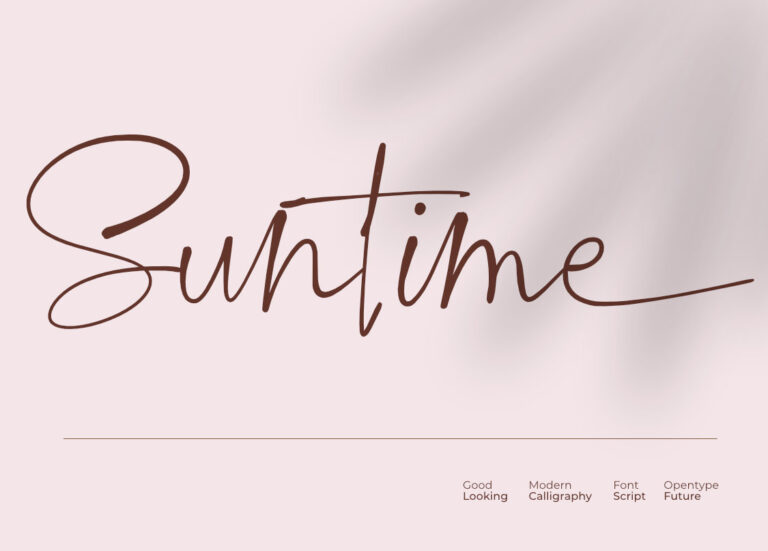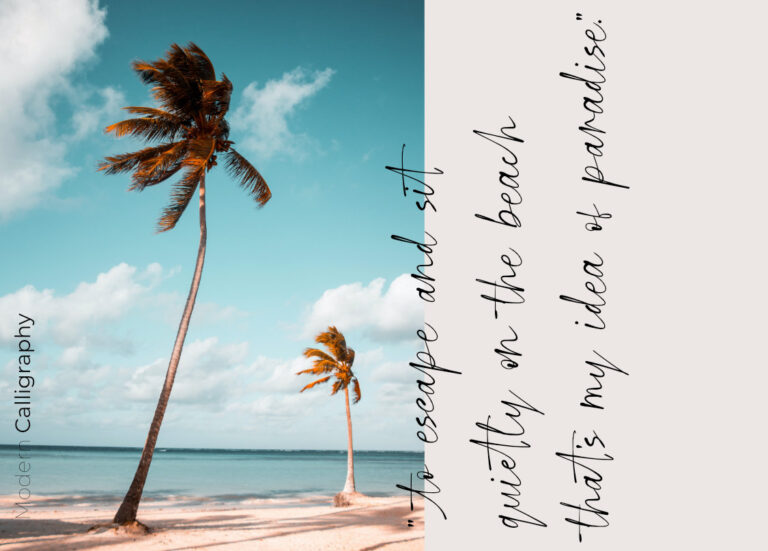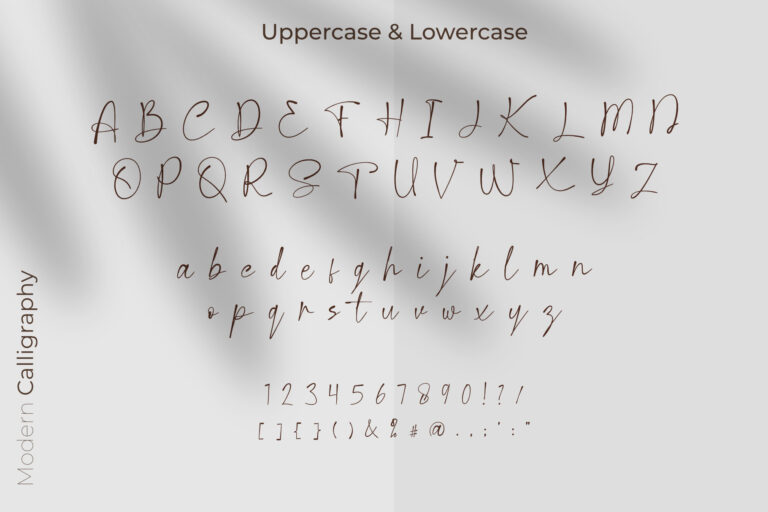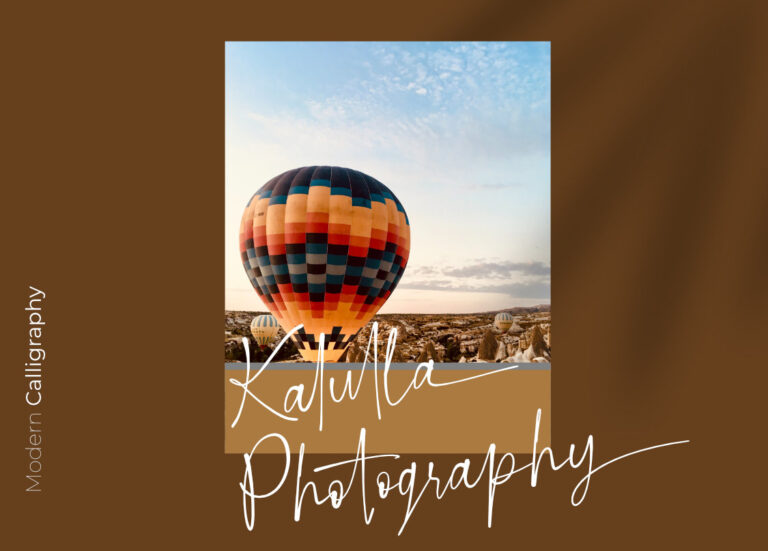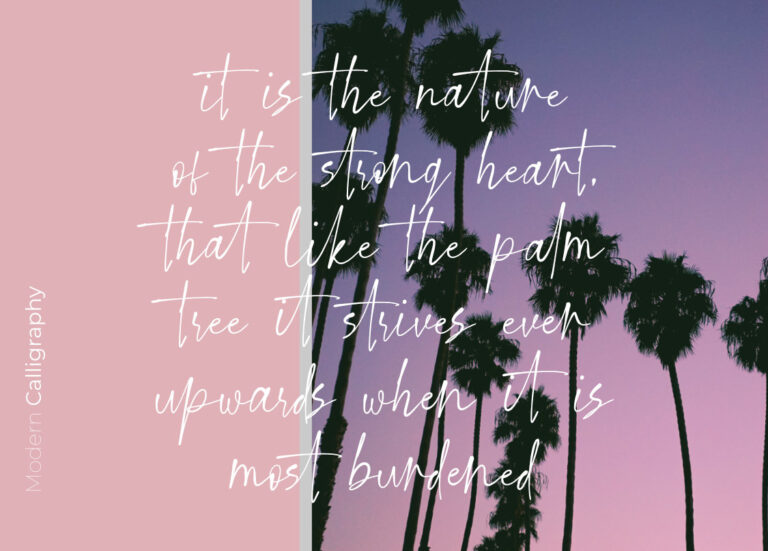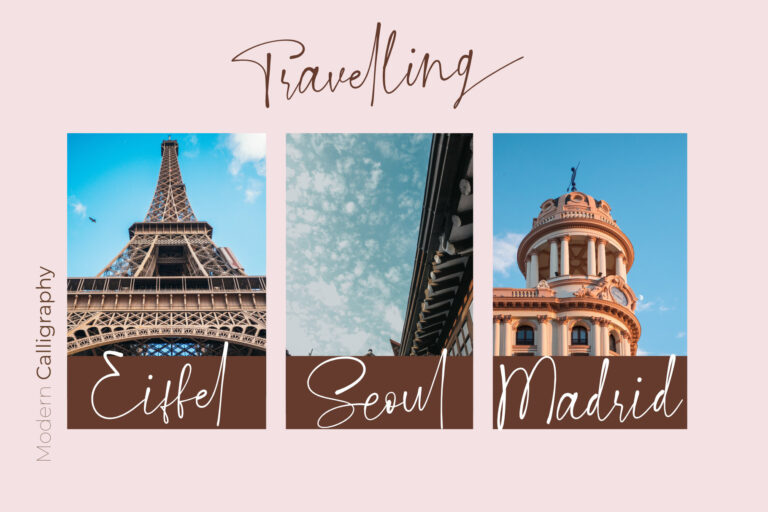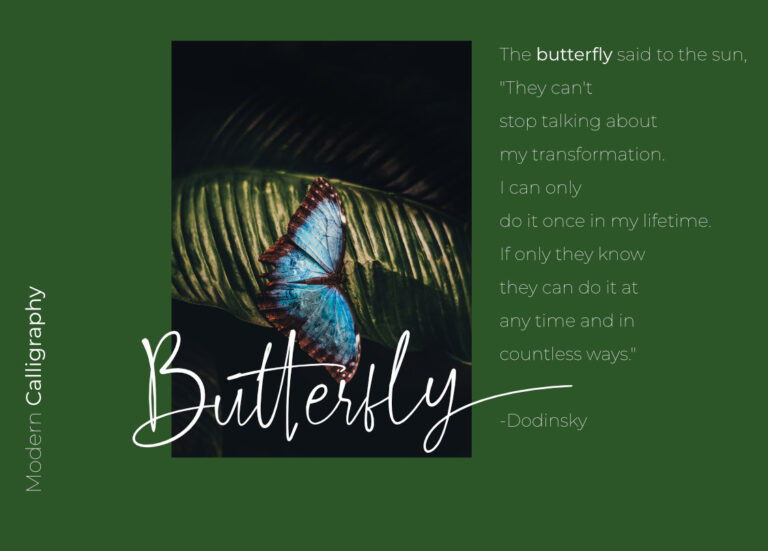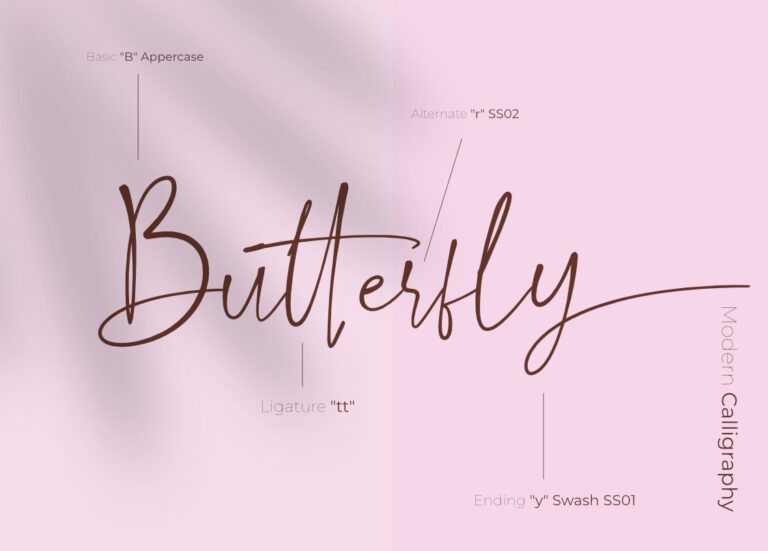
SUNTIME MODERN SCRIPT FONT
Say hello for our new font ” Suntime “ A Modern Script Font is perfect for branding, logos, invitation, masterheads and more.
Suntime script font Features :
• Multilanguange
• Ligatures
• Alternates
• PUA Encoded